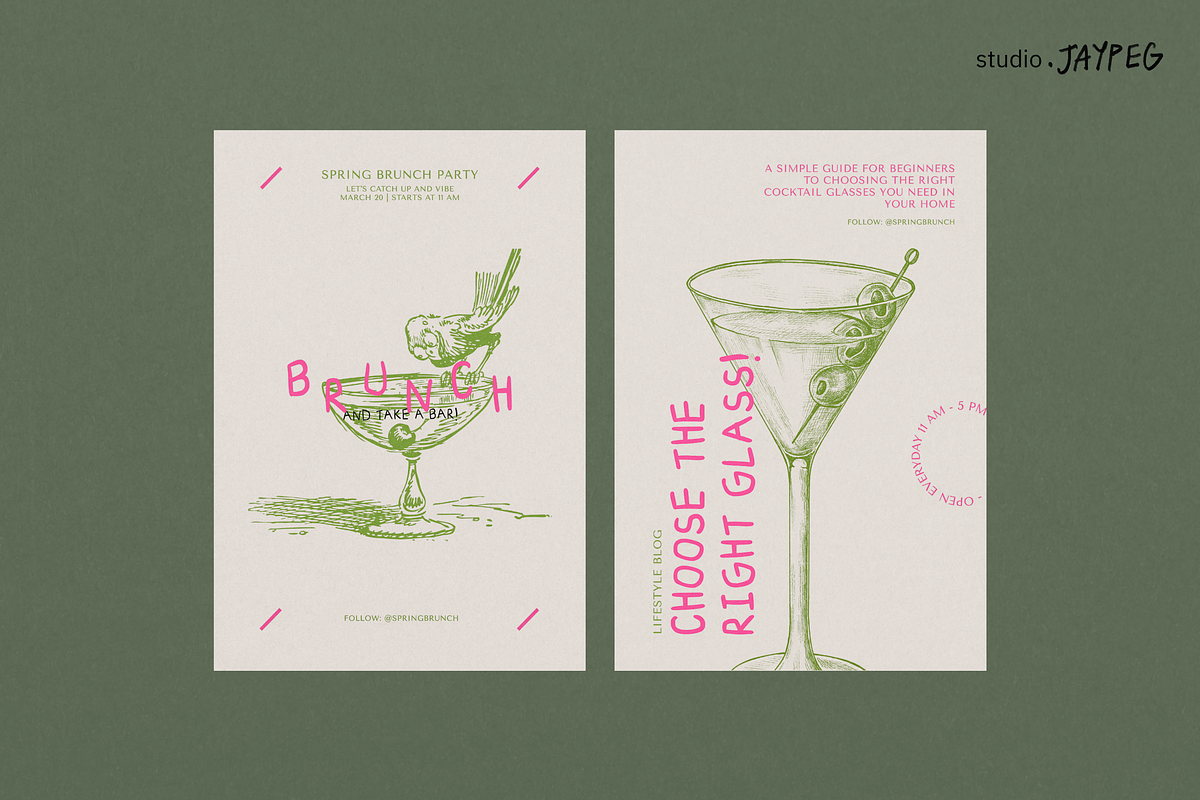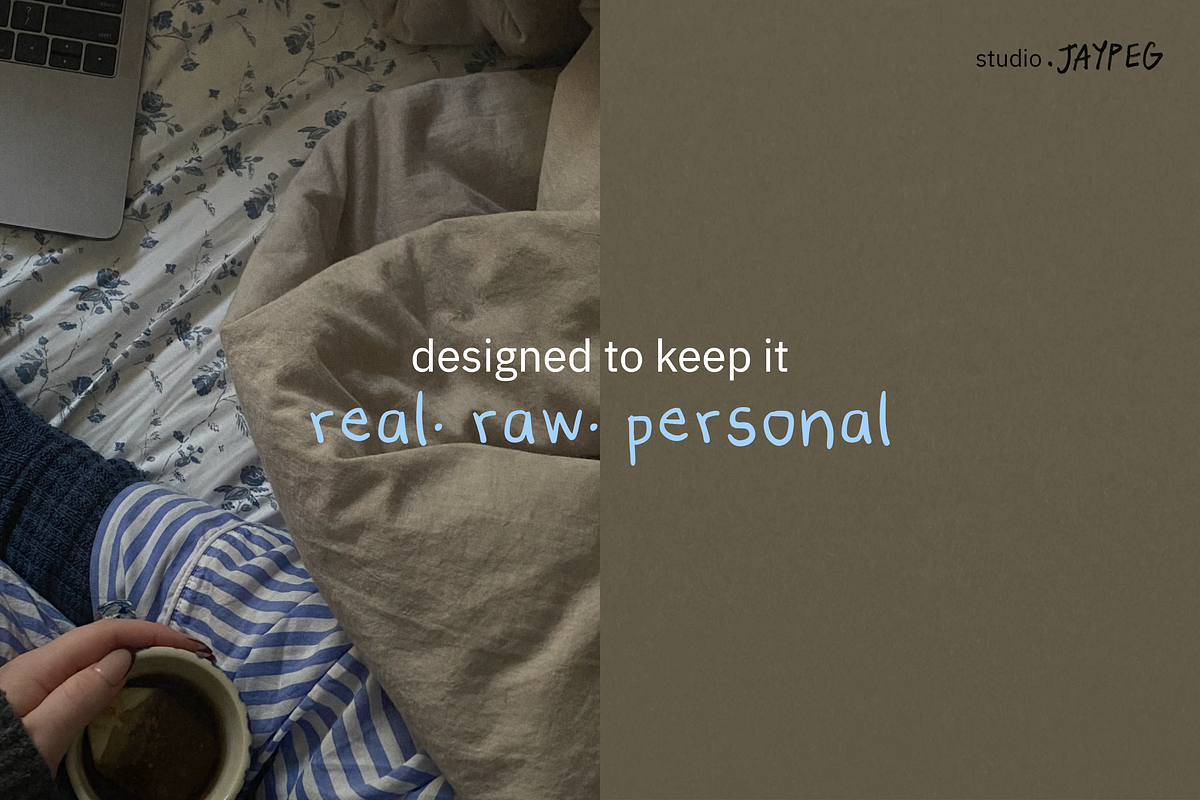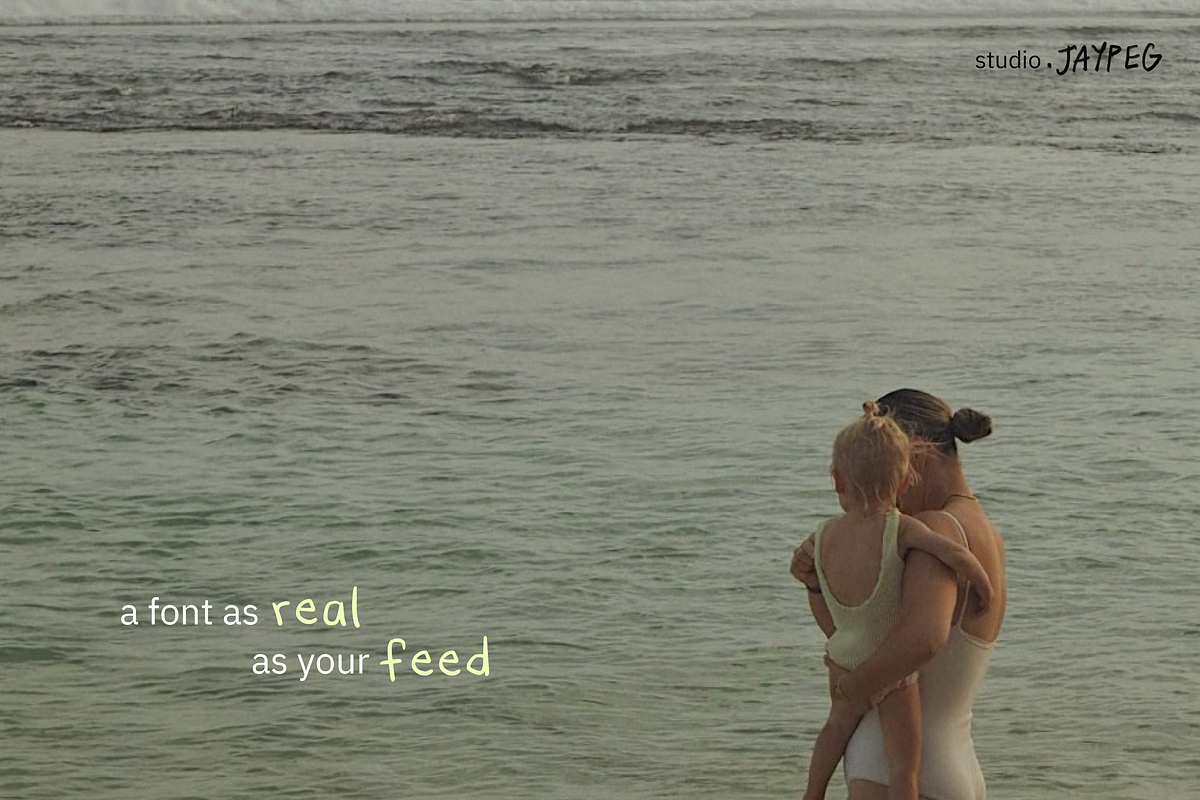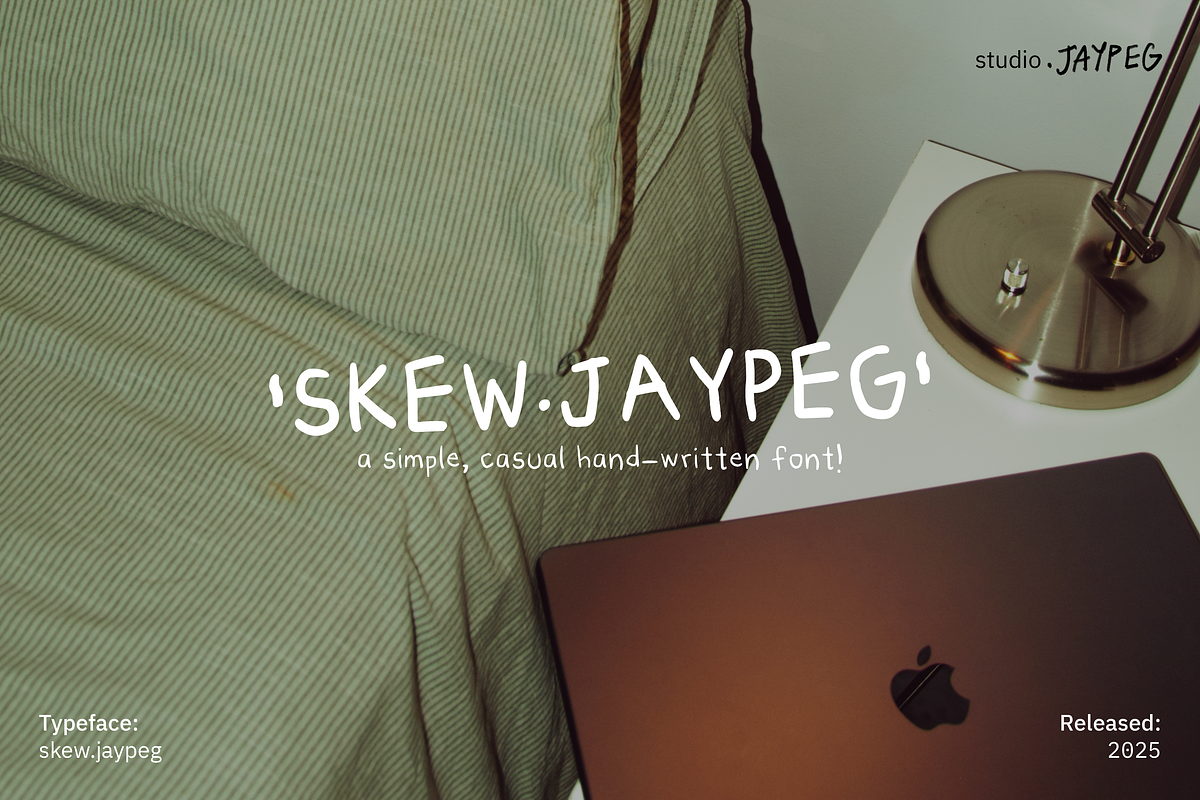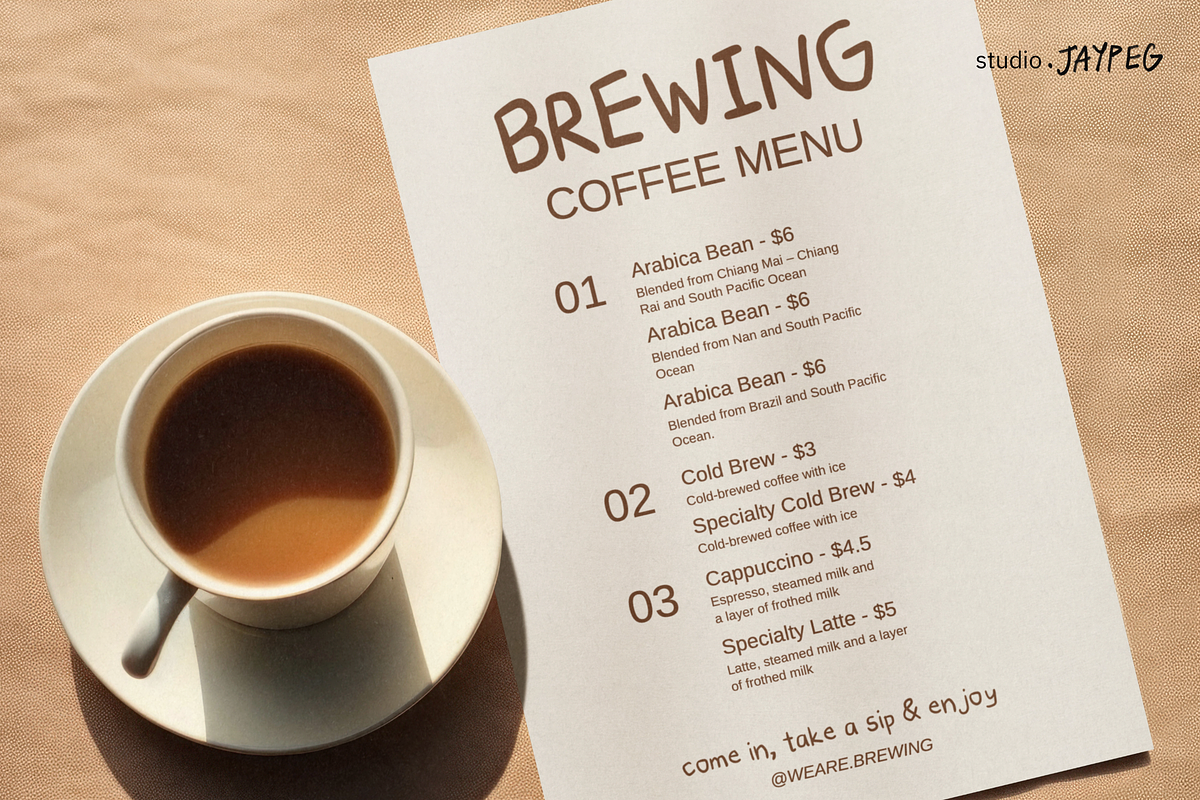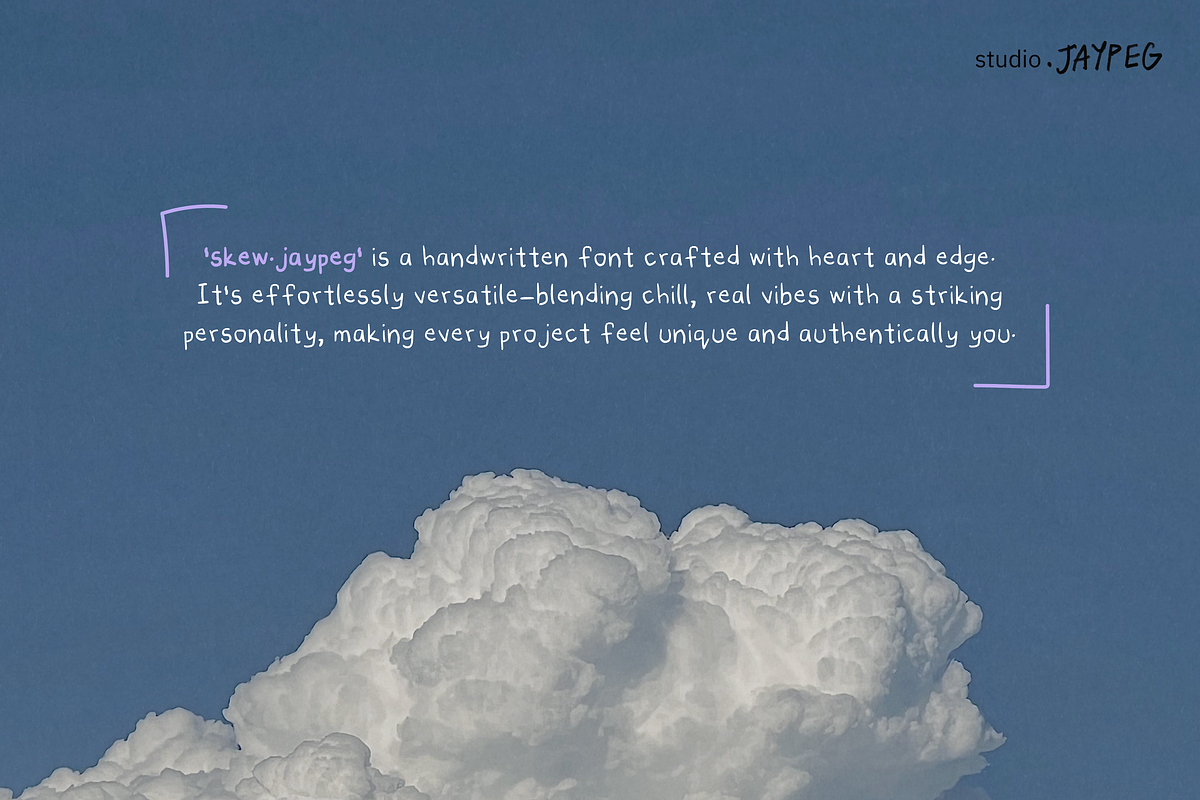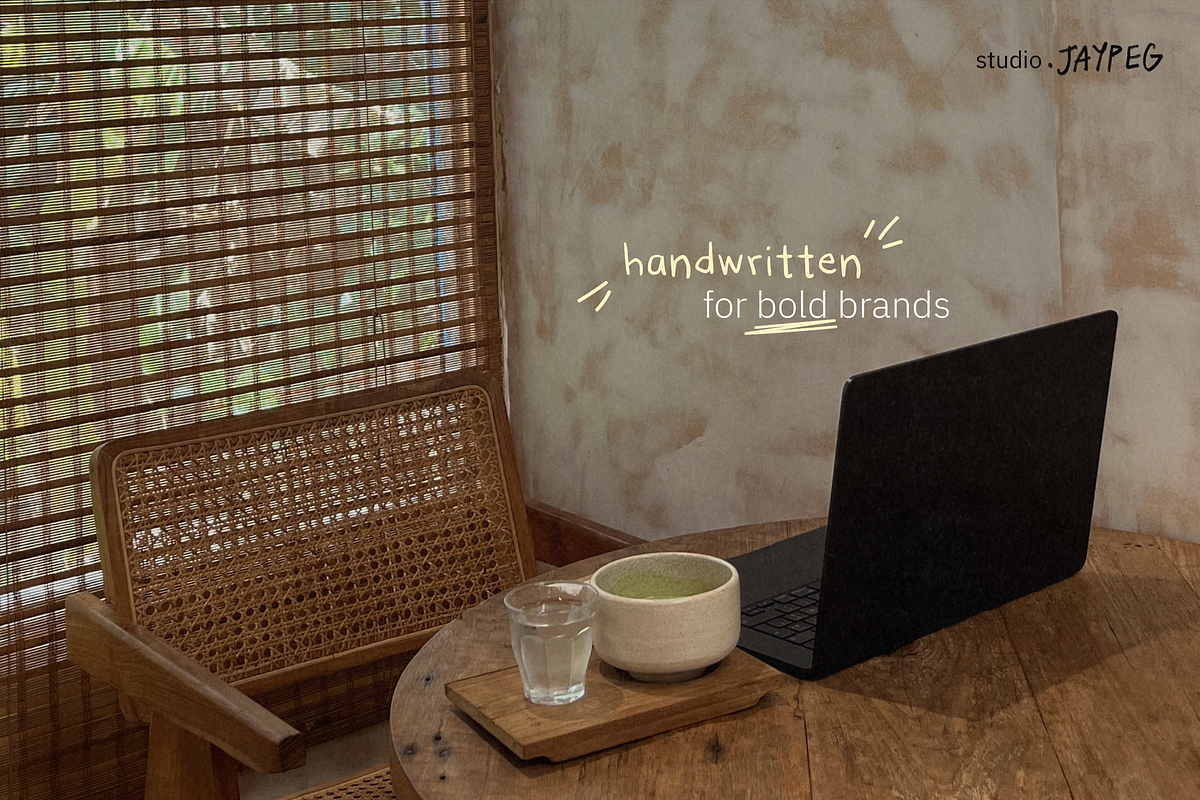
'skew.jaypeg' | handwritten font
‘skew.jaypeg’ is a handwritten font crafted with heart and edge. It’s effortlessly versatile-blending chill, real vibes with a striking personality, making every project feel 'unique and authentically you'.
'skew.jaypeg' includes 2 styles:
- BIG : All-caps bold lettering and
- SMALL : A matching font with lowercase letters